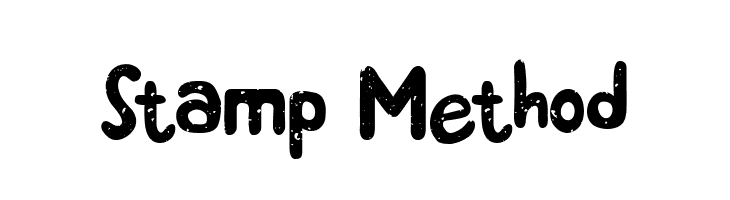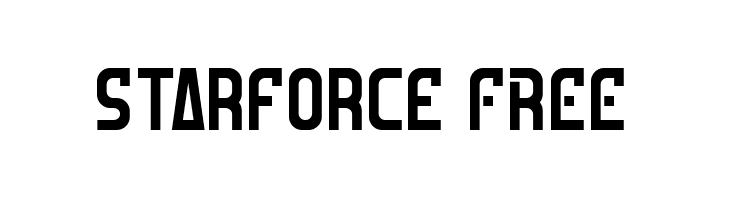
A bold, distressed font with a vintage, handcrafted feel.
A modern, elegant script font with fluid, interconnected strokes.
A bold, playful handwritten font with rounded, expressive characters.
A flowing, cursive script font with elegant, connected strokes.
A bold, flowing script font with elegant curves and playful flourishes.
A classic blackletter font with ornate, angular letterforms and a medieval aesthetic.
A graceful, cursive script font with a natural handwritten style.
A bold, cursive font with a playful and energetic style.
An ornate, vintage-style font with intricate curls and flourishes.
A bold, geometric font with high contrast and unique cutouts.